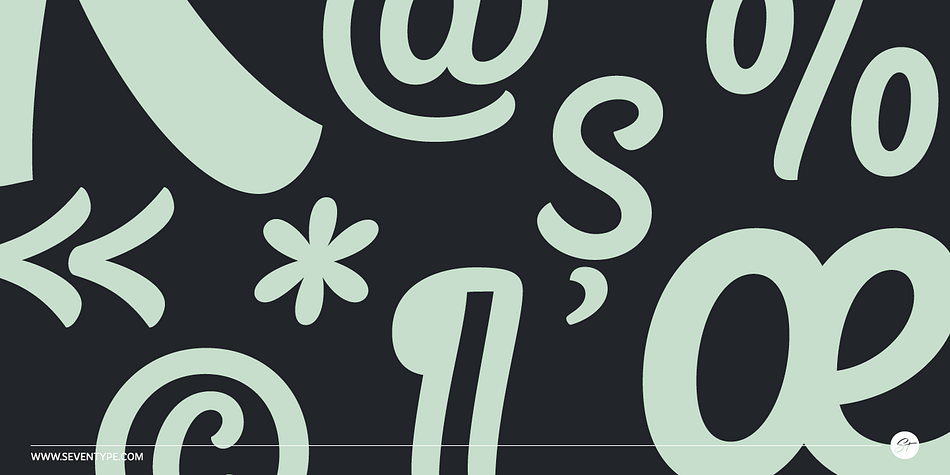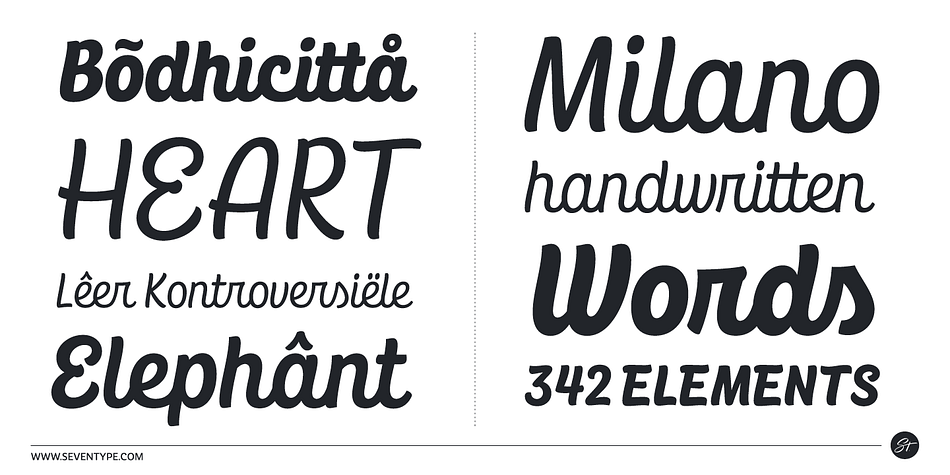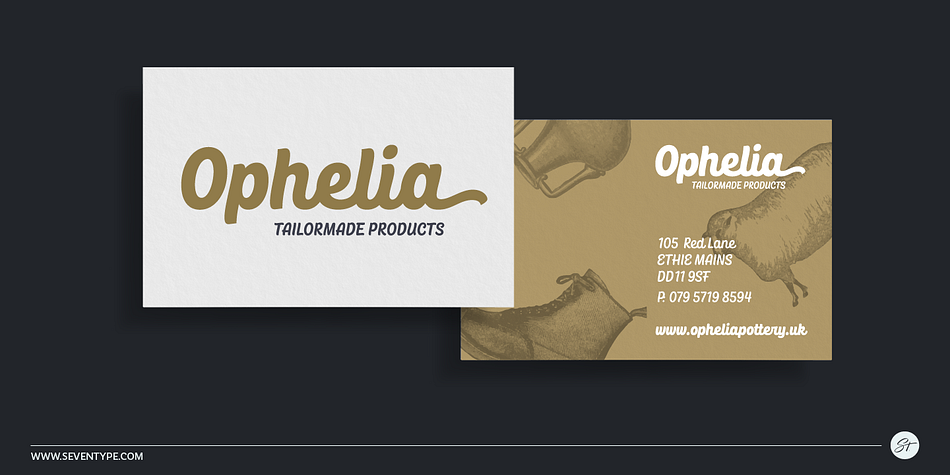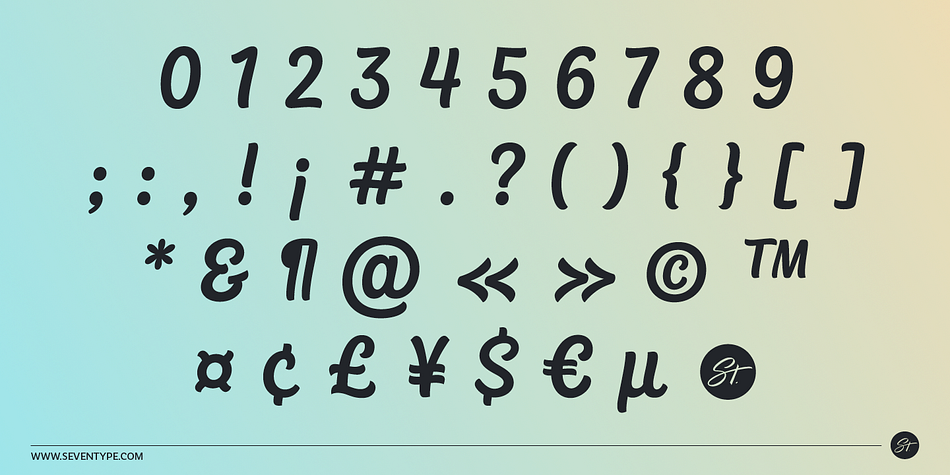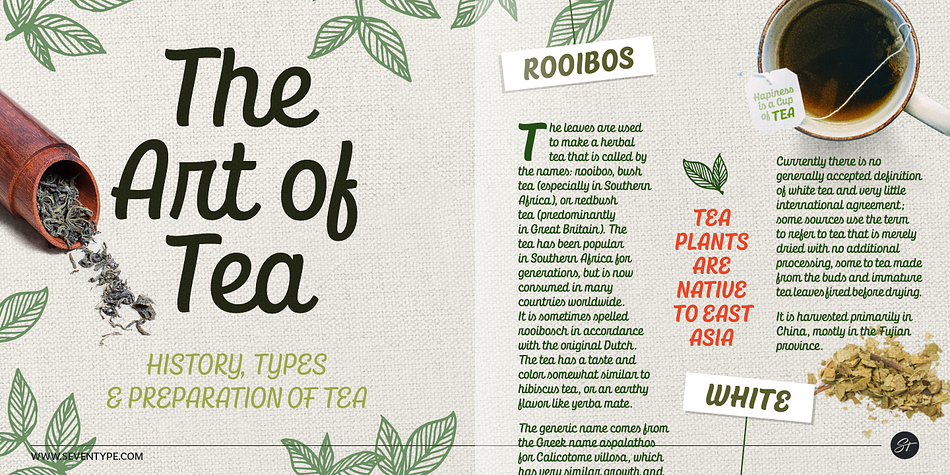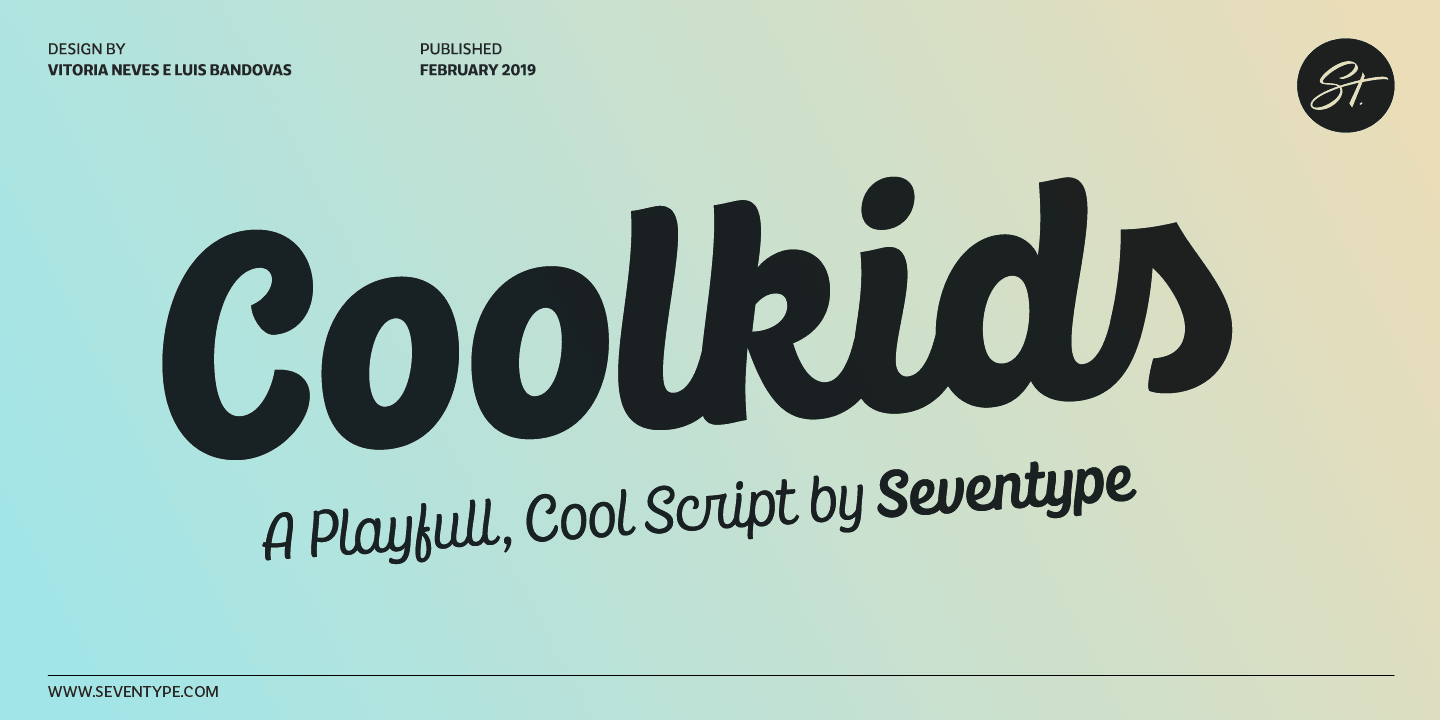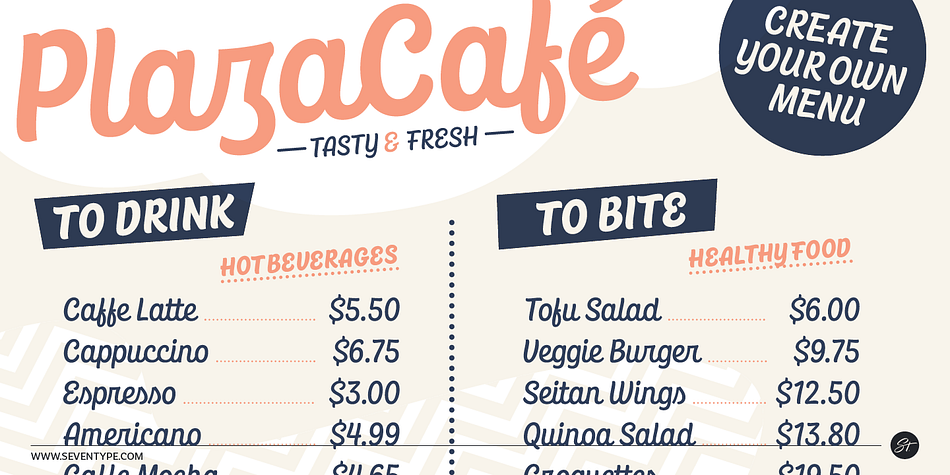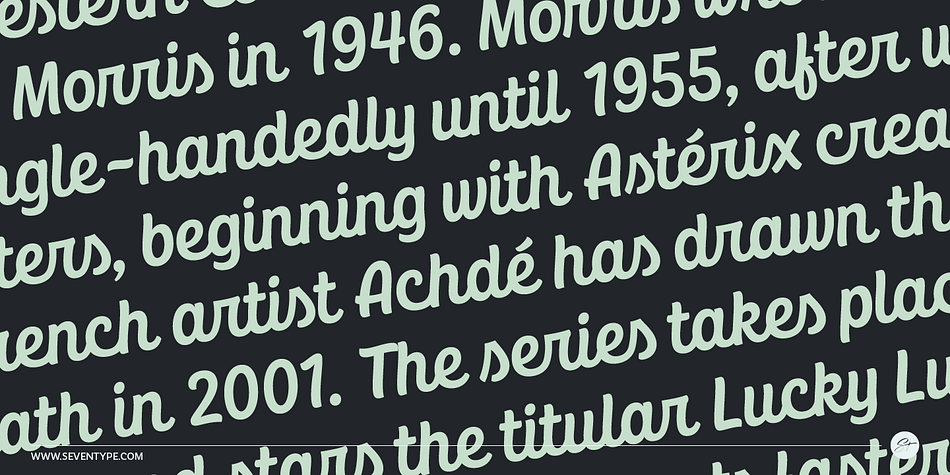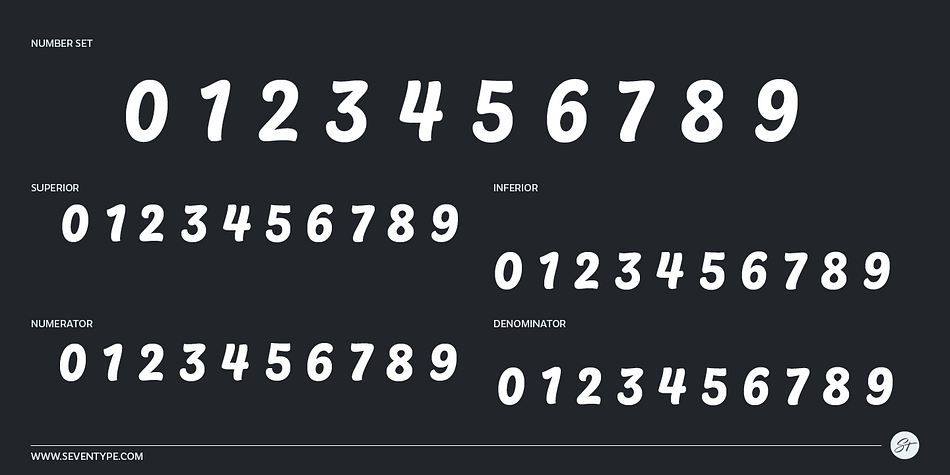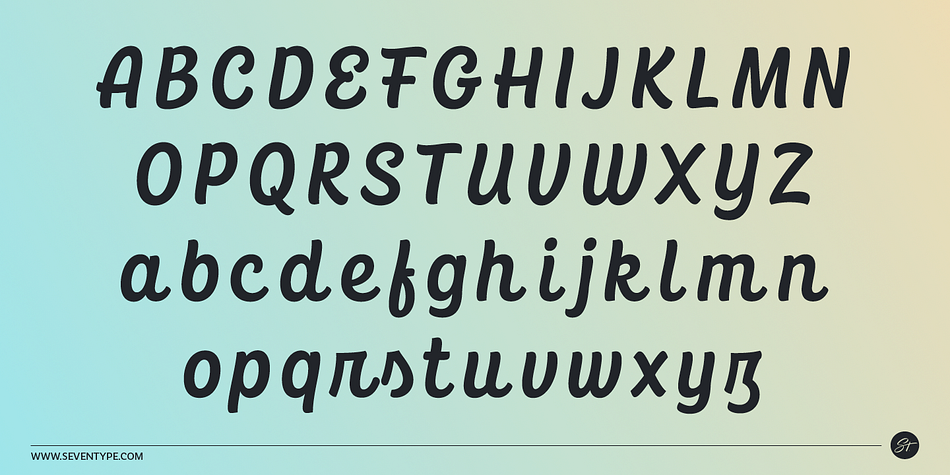
Designed by Vitória Neves and Luis Bandovas, CoolKids is a brush script font family. This typeface has four styles and was published by SevenType.
CoolKids was inspired by the song “Signs of Life” by Arcade Fire. Since the lyrics talk about some cool kids we wondered what a typeface with the name cool kids would look like. We immediately knew it had to be laid back yet bold and to stand out from the crowd.
After designing the bold script we decided to include a light, regular and medium weight to offer you more options for your designs.
It comes with initial and final alternates, that show up automatically, to make it feel more natural and similar to handwriting. Every character was carefully drawn and connections are really smooth.
This casual font-family speaks most Latin languages, both in their basic and alternate forms.
CoolKids is great for creating logos, packaging, posters and much more.